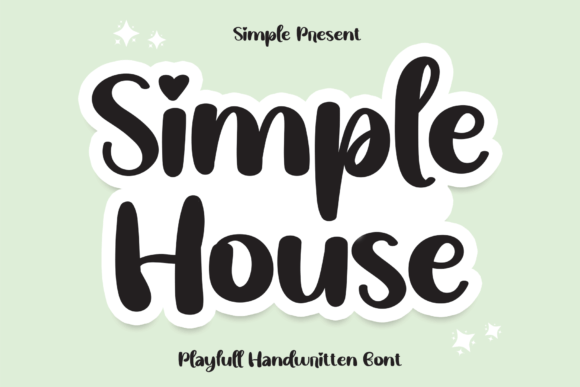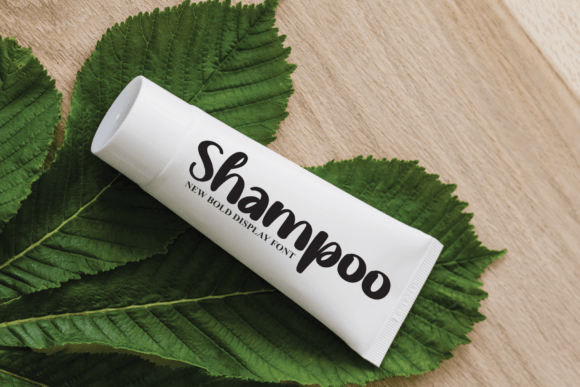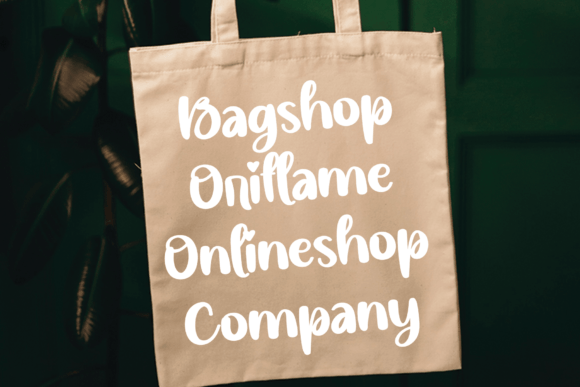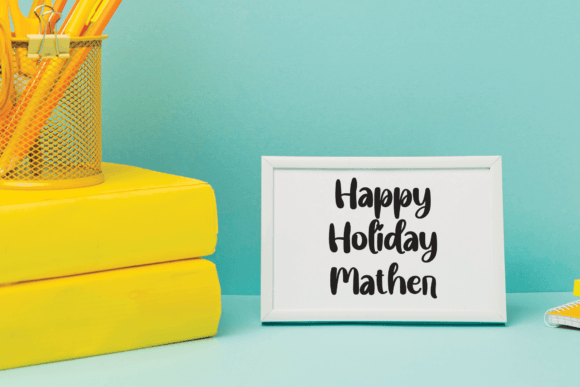
About Simple House Font
Simple House emerges as a charming and cursive handwritten font, exuding a sweet and gentle quality. With its graceful strokes, this font adds a touch of elegance to a myriad of design ideas, promising to enhance the visual appeal of your projects. Its inherent sweetness and cursive script make it a versatile choice for a range of creative applications.
This delightful font is particularly well-suited for branding endeavors, allowing your identity to exude a unique and appealing personality. The cursive nature of Simple House lends itself beautifully to logos, adding a personal and artistic flair that captivates attention. The font’s handwritten charm also makes it an ideal choice for wedding-related designs, effortlessly infusing invitations, signage, and other elements with a joyful and romantic touch.
Greeting cards become more than just messages; they become expressions of sentiment with the addition of Simple House. The font’s gentle curves and sweet demeanor elevate your words, making each card a work of art that conveys warmth and sincerity. Moreover, fashion-related projects, such as lookbooks and promotional materials, benefit from the font’s balance of elegance and casualness, creating a visually appealing and stylish presentation.
Marketing promotions take on a new dimension with Simple House, as it brings a sense of sophistication without sacrificing approachability. Whether you’re aiming for a fancy and elegant aesthetic or a more casual vibe, this font effortlessly strikes the right balance. Its versatility makes it a valuable asset across a spectrum of design scenarios.
In summary, Simple House isn’t just a font; it’s a design companion that adds a unique charm to your creative projects. Its sweet and cursive nature ensures that it seamlessly fits into various contexts, from formal branding to casual marketing materials. So, whether you’re looking to make your logo stand out, infuse romance into wedding designs, or elevate the style of your fashion-related projects, Simple House is the perfect choice—a font that combines sweetness, elegance, and a touch of casual sophistication.